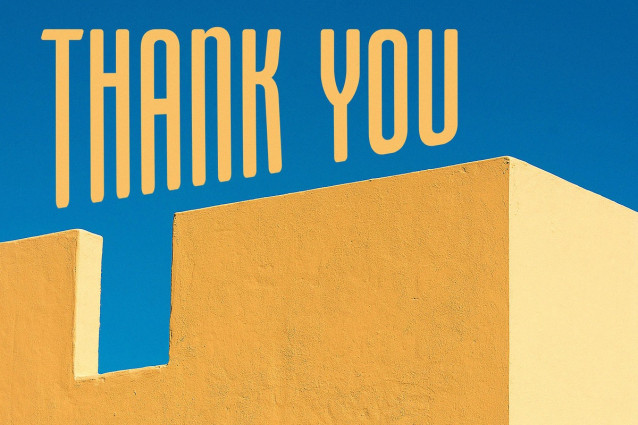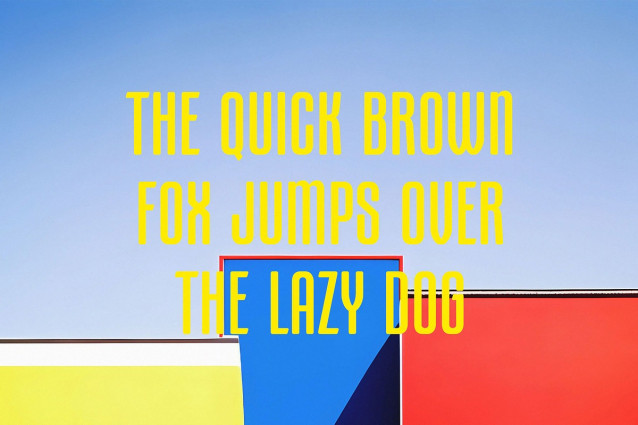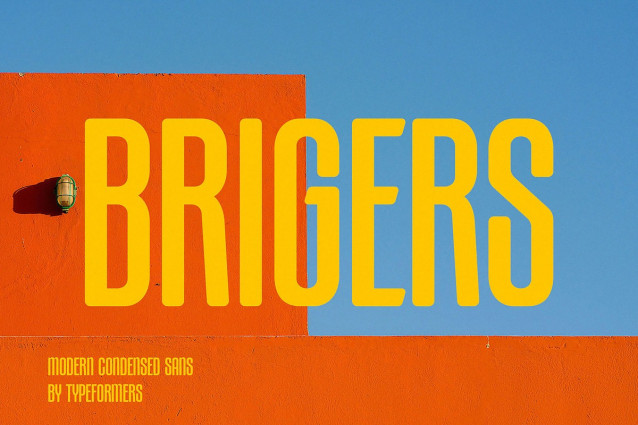
Brigers Font
Brigers Font – Modern Condensed Sans, is a modern and simple font, best used as a display for headings, logos, branding, magazines, product packaging and invitations.